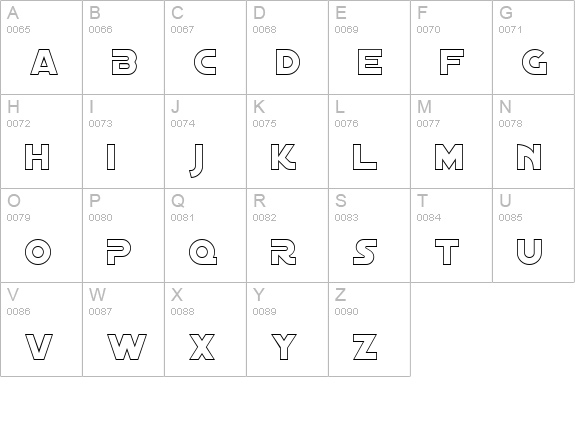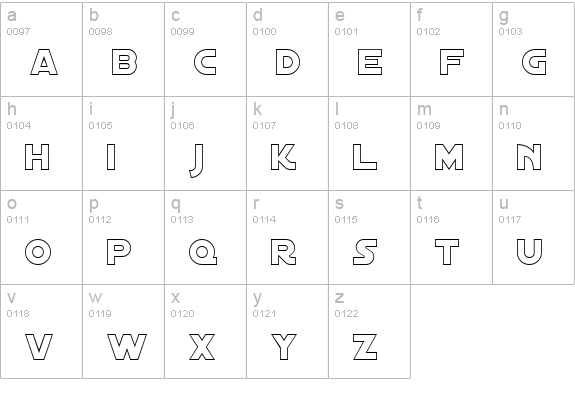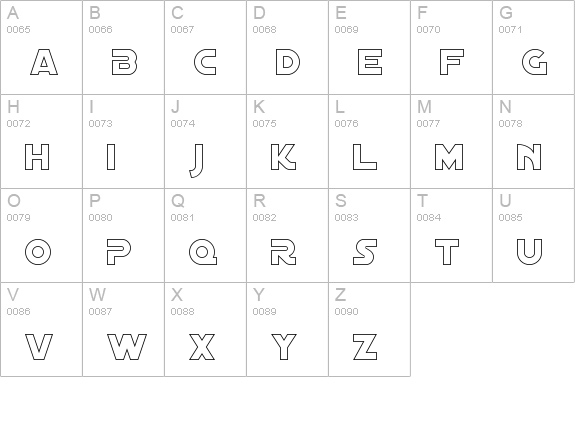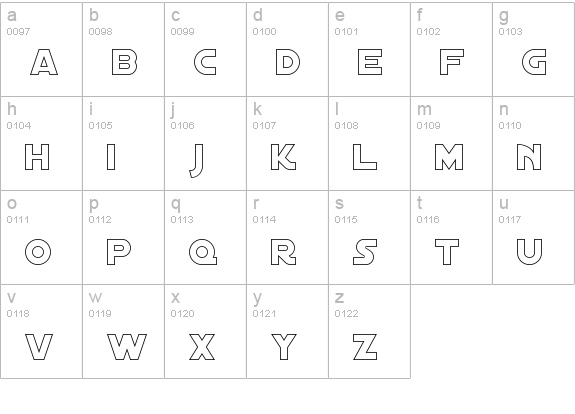
Distant Galaxy Outline font is a stunning display typeface that will transport your designs to a whole new dimension. Its futuristic and space-inspired design makes it perfect for projects that require a touch of cosmic elegance. The clean lines and sharp edges of this font give it a modern and edgy look, making it ideal for logos, headlines, posters, and more. What's even better is that Distant Galaxy Outline font is available for free download at FontsMarket.com. Yes, you read that right - you can get your hands on this unique typeface without spending a penny. So why wait? Elevate your designs with Distant Galaxy Outline font today and let your creativity reach for the stars.